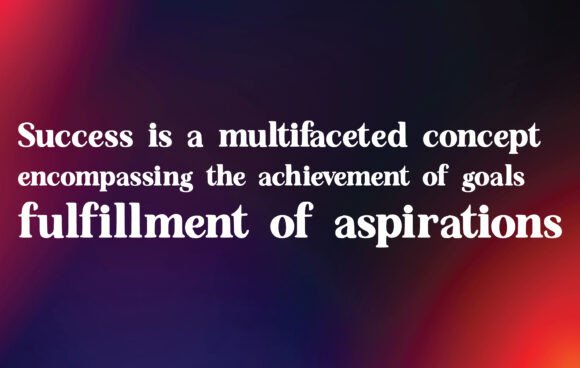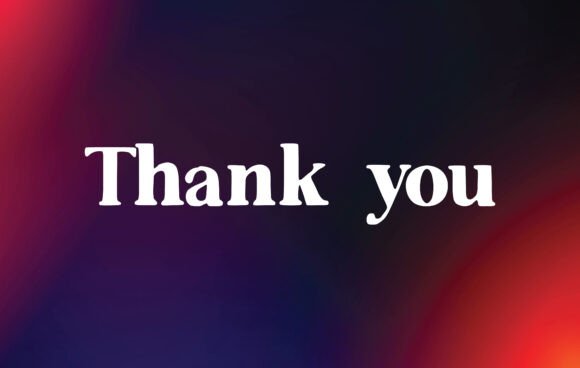
Discover the Versatility of Cuckoo Font: Elevate Your Creative Projects
In the world of typography, finding the perfect font that combines style, readability, and versatility can be a daunting task. However, if you’re on the hunt for a typeface that can effortlessly elevate your creative projects, look no further than the Cuckoo Font. This beautifully crafted font is designed to become a staple in your collection, offering a unique blend of aesthetics and functionality that suits a wide range of applications.
The Perfect Blend of Style and Versatility
Cuckoo Font is meticulously designed to provide the perfect balance between style and versatility. Its elegant and clean lines make it incredibly easy to read, which is essential for body text. At the same time, its distinctive charm and character give it a standout quality that’s perfect for titles and headlines. This dual capability makes Cuckoo Font an excellent choice for various creative projects, from professional designs to personal crafting endeavors.
Applications of Cuckoo Font
The versatility of Cuckoo Font is one of its most compelling features. Whether you’re working on a commercial project or a personal craft, this font adapts seamlessly to different contexts. Here are some of the many ways you can use Cuckoo Font:
- Magazine Headlines: Create eye-catching titles that capture the essence of your articles with Cuckoo Font’s stylish and readable design.
- T-Shirts and Apparel: Add a touch of elegance and personality to your clothing designs with this font’s unique and versatile look.
- Social Media Posts: Stand out on social media platforms with Cuckoo Font’s distinctive style that is sure to grab attention.
- Branding Materials: Enhance your brand’s visual identity with a font that exudes professionalism and creativity.
- Wedding Invitations: Add a touch of sophistication and romance to your wedding invitations and save-the-date cards.
- Greeting Cards: Whether it’s a birthday, anniversary, or holiday card, Cuckoo Font brings a level of elegance and warmth to your greetings.
Why Choose Cuckoo Font?
With so many fonts available, what makes Cuckoo Font a preferred choice for designers and crafters? Here are a few reasons:
- Readability: Its clear and clean design ensures that your text is easy to read, making it suitable for both titles and body text.
- Versatility: It can be used across a wide range of projects, from digital content to print materials.
- Aesthetic Appeal: Cuckoo Font has a unique charm that adds a professional yet creative touch to your designs.
- User-Friendly: Perfect for both beginners and experienced designers, it’s easy to integrate into your projects.
Tips for Using Cuckoo Font
To maximize the potential of Cuckoo Font, consider the following tips:
- Experiment with Sizes: While it’s designed to be readable in various sizes, experimenting with different sizes can help you find the perfect balance for your project.
- Play with Colors: Cuckoo Font works well with a wide range of colors. Try different color schemes to see what best complements your design.
- Mix and Match: Don’t be afraid to use Cuckoo Font in combination with other typefaces to create visual interest and hierarchy in your designs.
Cuckoo Font is more than just a typeface; it’s a creative tool that can elevate your projects to new heights. Its perfect blend of style, readability, and versatility makes it an indispensable asset for designers, crafters, and anyone looking to add a touch of elegance to their work. Whether you’re creating professional branding materials or personal crafts, Cuckoo Font is sure to become your go-to favorite. So why wait? Explore the possibilities with Cuckoo Font today and discover how it can transform your creative projects.